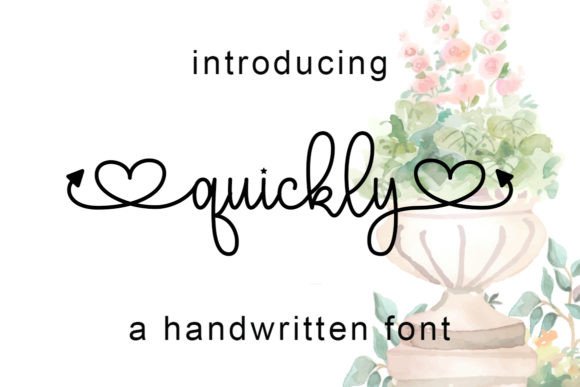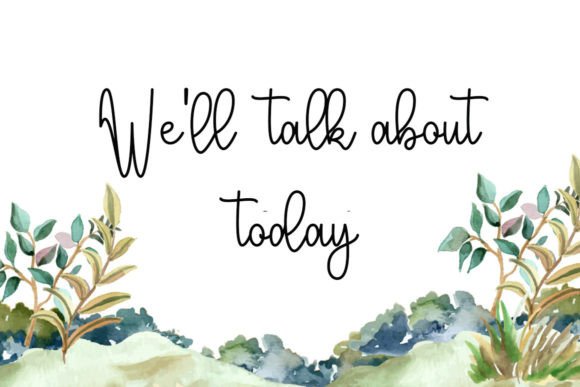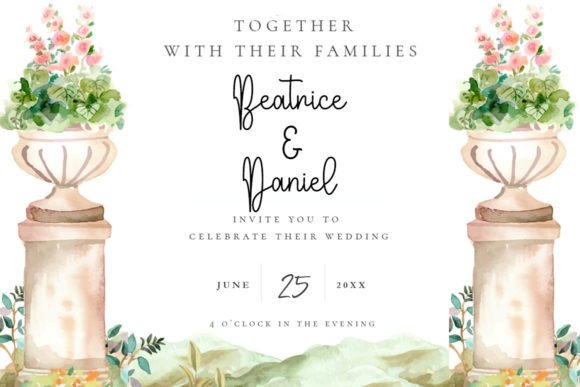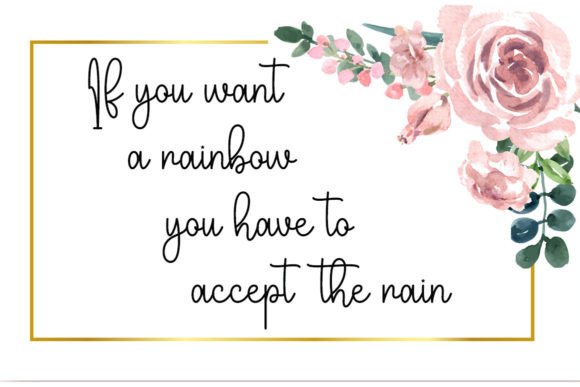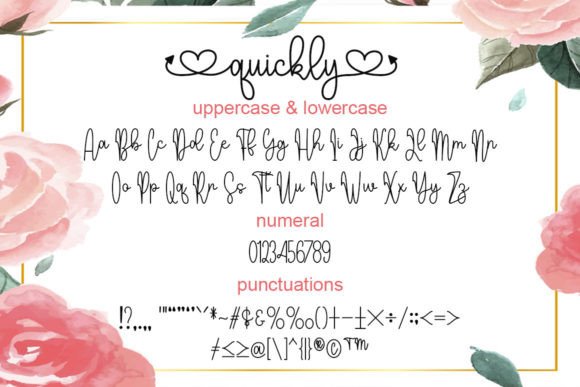
About Quickly Font
An Enchanting Script Font
The Quickly Font is a beautifully designed script typeface that exudes elegance and charm. With its fluid, graceful strokes, it’s perfect for a wide range of design projects, from logos and branding to quotes, clothing designs, and tote bags. Whether you’re working on business cards, websites, or product labels, the Quickly Font brings a sophisticated, handwritten touch to any project.
Ideal for Logos and Branding
If you’re looking to create a memorable logo or build a brand identity, the Quickly Font is an excellent choice. Its script style gives your logo a personal, elegant feel, making it ideal for businesses in fashion, beauty, art, and lifestyle industries. Whether you’re designing for a boutique, event planning company, or online brand, this font ensures your branding is distinctive and stylish.
Perfect for Quotes and Typography-Based Designs
The Quickly Font is perfect for any typography-based project, including quotes, headlines, and slogans. Its fluid, readable script makes it ideal for social media posts, motivational messages, or marketing content. Whether you’re creating inspirational quotes for your blog, website, or product packaging, this font adds a unique touch that grabs attention and enhances your content.
Great for Clothing and Tote Bags
The Quickly Font is an excellent choice for clothing designs and tote bags. Its stylish, handwritten aesthetic makes it ideal for custom apparel or merchandise. Whether you’re designing graphic tees, sweatshirts, or eco-friendly tote bags, this font adds a personal, artistic touch that makes your designs stand out. Perfect for fashion brands, this font brings flair to your collections and merchandise.
Versatile for Business Cards and Stationery
The Quickly Font is highly versatile, making it ideal for business cards, stationery, and personalized items. Its clean script style ensures that your business card has a professional yet unique look, making a lasting impression on clients and customers. Whether you’re designing thank you notes, invitations, or letterheads, this font elevates your designs with sophistication and a handcrafted feel.
Access All Glyphs and Ligatures with Ease
Simple Yet Stylish
Although the Quickly Font offers a script design, its simple and flowing style ensures legibility while maintaining its beauty. This font balances readability with a stylish and modern touch, making it perfect for a variety of design applications. Whether you’re working on print designs, website content, or social media, this font ensures your message is both clear and artistic.
Elevate Your Designs with Quickly Font
Whether you’re designing logos, business cards, quotes, websites, or clothing, the Quickly Font brings charm and elegance to any project. With its unique, handwritten script style, this font adds a personal, stylish touch to your designs. Fall in love with Quickly Font and take your projects to the next level by incorporating it into your creative work.